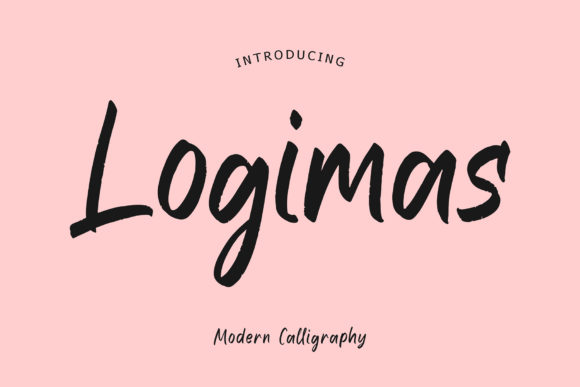
Step into a world of captivating expression with Logimas, our exclusive script font. Imagine your words dancing across the screen, infused with an authentic brush style that breathes life into your designs. Whether you're crafting eye-catching logos, alluring posters, or captivating social media posts, Logimas empowers you to leave an unforgettable mark.
Every stroke of Logimas conveys a sense of authenticity, as if each letter were carefully drawn by hand. Its fluid lines and expressive curves invite you to create designs that resonate with your audience on a visceral level. Dive into a symphony of creativity, where originality takes center stage and your imagination knows no bounds.
Don't settle for ordinary fonts that fade into the background. With Logimas, your designs will command attention, sparking a connection that transcends the screen. Let your words ignite emotions and inspire action, leaving a lasting impression on all who encounter them.
Embrace the power of Logimas and unlock the potential of your designs. Its versatility knows no limits, making it the perfect choice for a wide range of projects. From branding and advertising to packaging and web design, Logimas seamlessly adapts to your vision, enhancing your creations with a touch of artistry and flair.
Indulge in the beauty of Logimas, where handwritten elegance meets modern aesthetics. Experience the joy of creating designs that captivate, engage, and inspire. Let your creativity soar and make a statement with Logimas, the font that transforms your words into works of art.